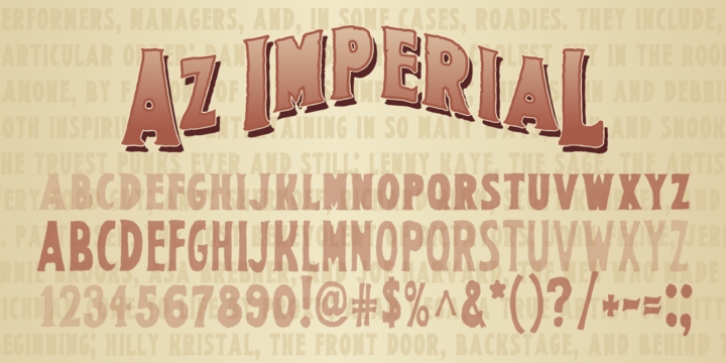
AZ Imperial font was inspired from miscellaneous vintage tin packaging. Complete with an “old look” to the line work with barely a serif still visible.
Ideal for use as headline or sub-head text in you design.